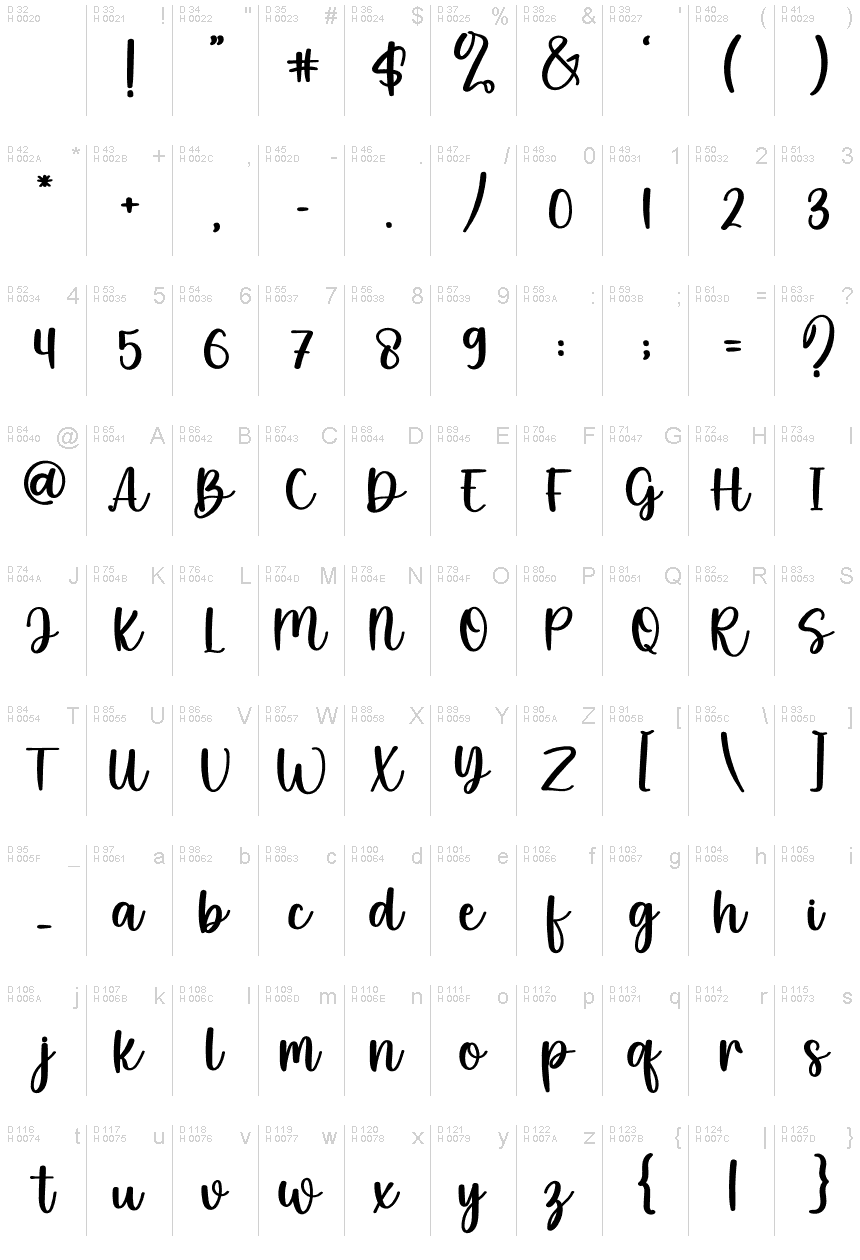
Lovely White
Lovely White, designed by FreshtypeINK, is a captivating handwritten font that exudes elegance and charm. With its graceful curves and refined strokes, this font adds a touch of sophistication to any project. Perfect for wedding invitations, greeting cards, and feminine branding materials, Lovely White effortlessly captures the essence of romance and beauty. Its versatility makes it equally suitable for fashion magazines, lifestyle blogs, and social media graphics. Whether you're creating a delicate logo or designing an exquisite editorial layout, Lovely White will bring your creative vision to life with its timeless appeal.